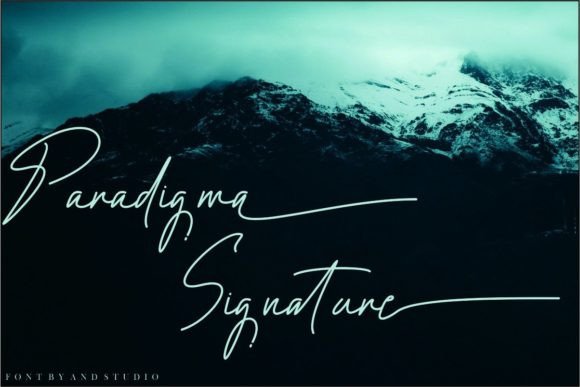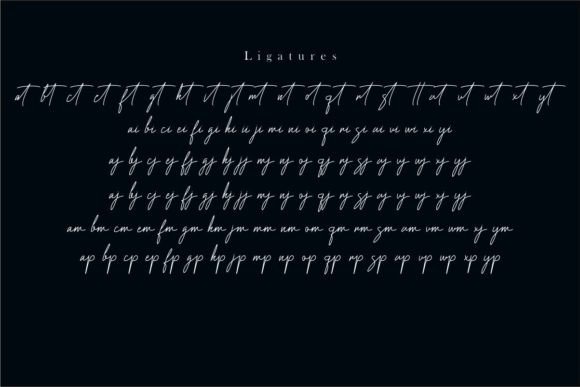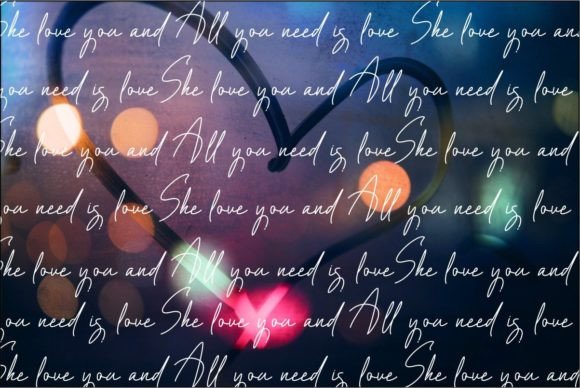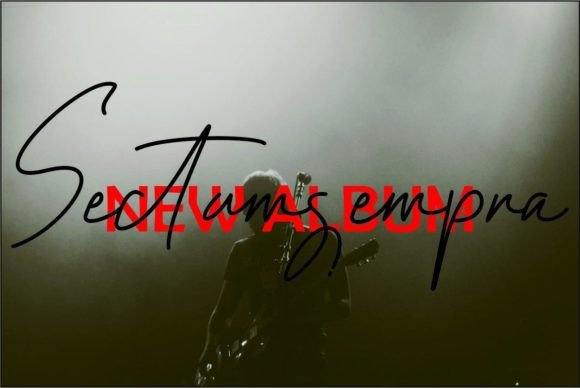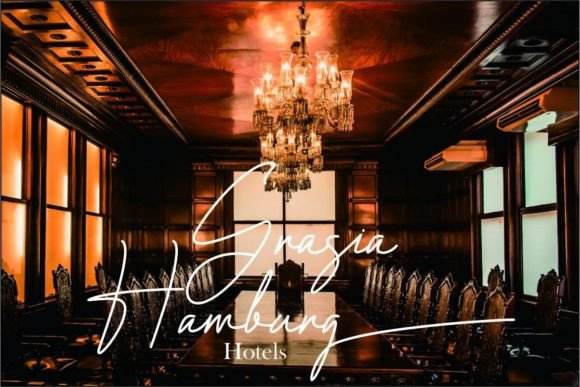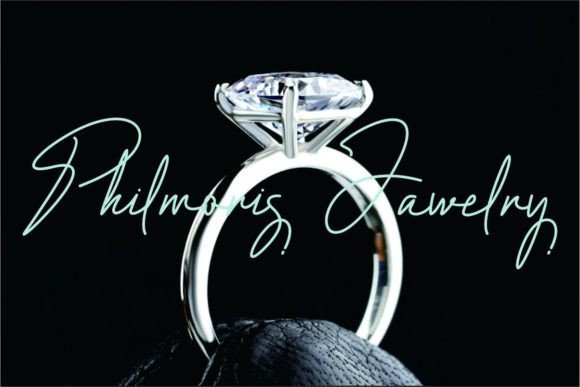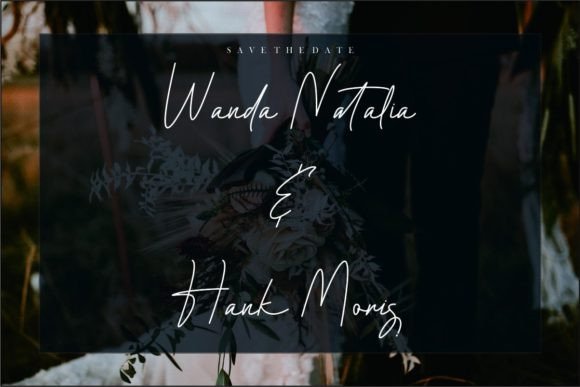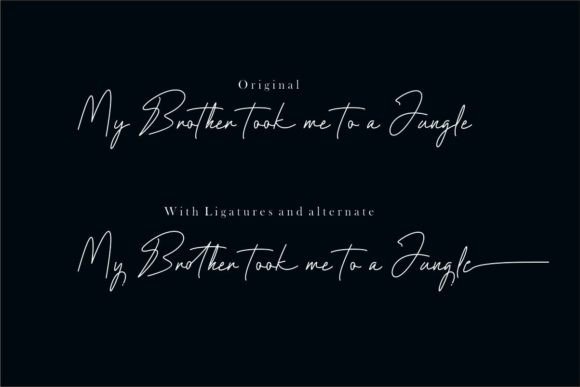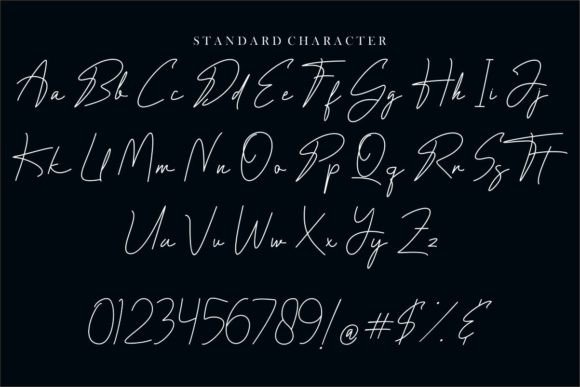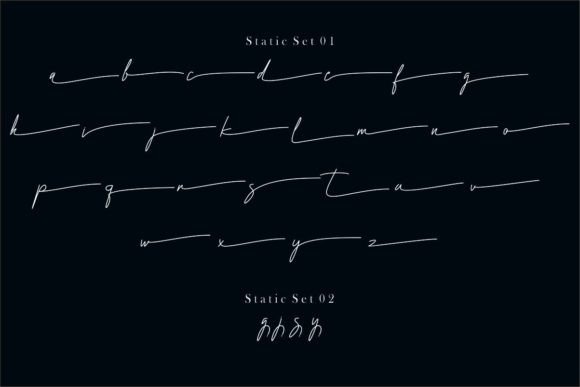
Paradigma Signature Font
About Paradigma Signature Font
Paradigma Signature is a font that epitomizes delicacy and elegance, offering a handwritten style that exudes sophistication and charm. Its versatile design allows it to be seamlessly integrated into a wide range of creative projects, enabling designers to craft truly spectacular designs that leave a lasting impression on their audience.
The font’s delicate strokes and graceful curves make it a perfect choice for various applications, including wedding invitations, branding materials, greeting cards, logos, and more. Its elegant appearance adds a touch of refinement to any project, creating a sense of timeless beauty that appeals to the eye.
One of the standout features of Paradigma Signature is its PUA (Private Use Area) encoding. This encoding system grants designers effortless access to a plethora of amazing glyphs and ligatures, enhancing the font’s flexibility and creative potential. With these additional elements, designers can create unique letter combinations, decorative flourishes, and intricate designs, adding a personalized touch to their work.
By using Paradigma Signature, designers can evoke emotions of grace and sophistication in their designs. The font’s versatility allows for seamless integration into both digital and print mediums, ensuring that the beauty of its handwritten style is preserved across various platforms. Its elegant demeanor sets the stage for creating visually stunning and memorable pieces of art.
Embrace the versatility of Paradigma Signature and let your creativity flourish. Whether you are designing a wedding invitation that captures the essence of romance or crafting a logo that exudes elegance, this font provides the perfect canvas for your creative endeavors. Fall in love with its timeless style and let it elevate your designs to new heights, leaving a lasting impact on anyone who encounters your work. With Paradigma Signature, you have the tools to create designs that are as unique and extraordinary as your imagination allows.